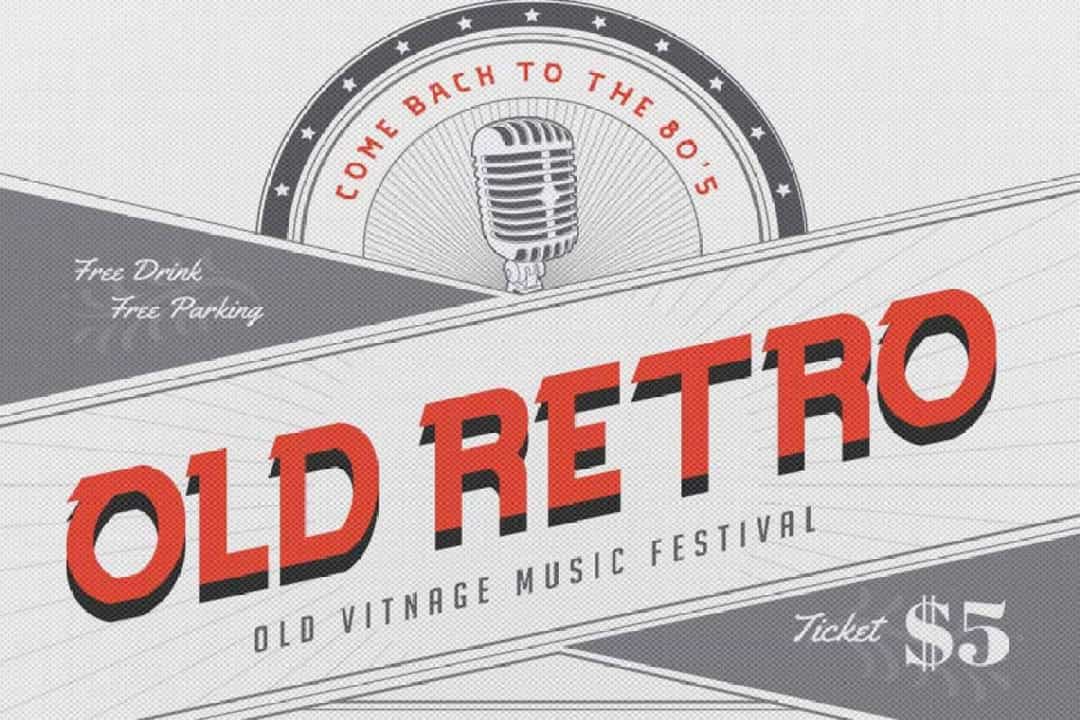
Alpawolf is a typographic title case font designed for strength and style, as well as practical use. Alpawolf has raw serifs with sharp terminations and Valenciaga is perfect to use in packaging products, logo designing or any other products!